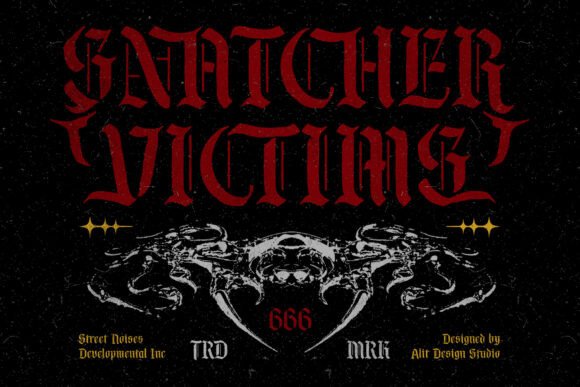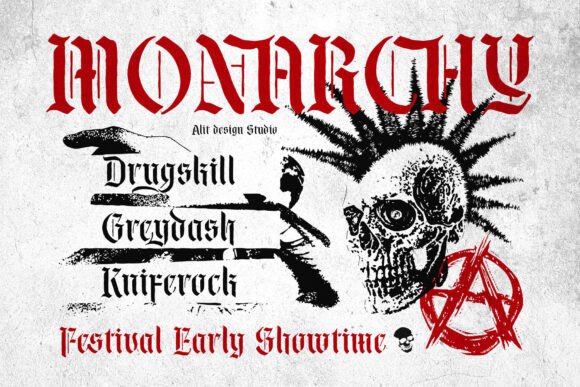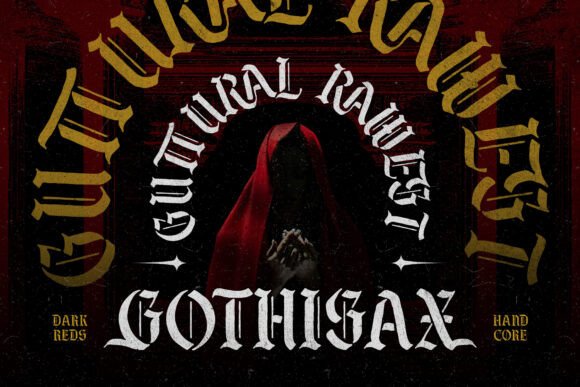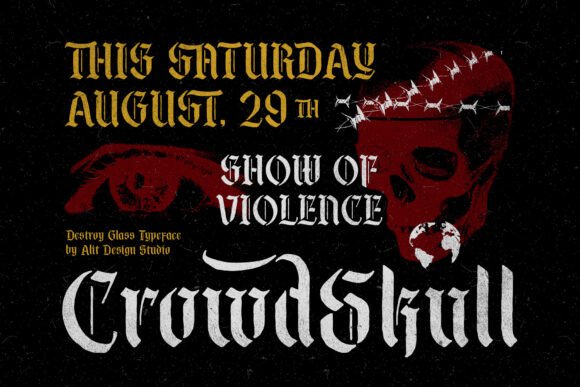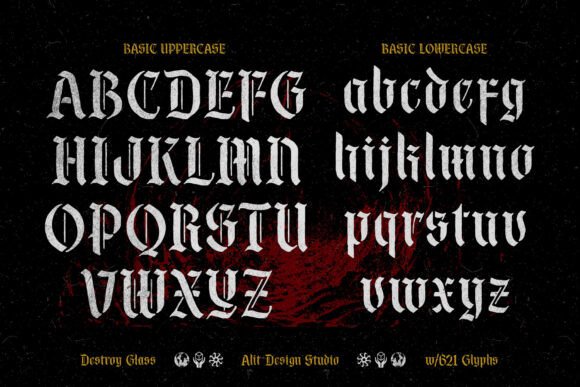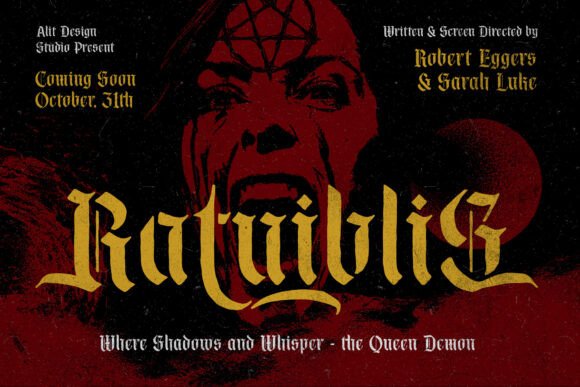
Unleash Boldness and Elegance with Destroy Glass Font
In the world of typography, a font can make all the difference in the impact and effectiveness of a design. For those seeking a typeface that exudes both boldness and elegance, Destroy Glass is an exceptional choice. This meticulously crafted blackletter stencil font is designed to make a powerful statement, offering the perfect balance of tradition and rebellion. Whether you’re aiming for a vintage gothic aesthetic or an edgy modern look, Destroy Glass delivers.
The Essence of Destroy Glass Font
Destroy Glass is not just a font; it’s an experience. Its blackletter stencil design combines the classic elements of traditional blackletter typography with the edginess of modern stencil fonts. This unique blend results in a typeface that is both timeless and contemporary, capable of fitting into various design contexts. From medieval-inspired projects to modern branding that requires a touch of gothic elegance, Destroy Glass is versatile and impactful.
The design of Destroy Glass is characterized by its bold lines, intricate stencil details, and a distinctive gothic flair. Each letterform is carefully crafted to ensure that it stands out, yet also complements the overall text when used in a sentence. The blackletter influence gives it a historical and mystical feel, while the stencil aspect adds a layer of modernity and precision.
One of the key strengths of Destroy Glass is its versatility. This font can be used across a wide range of design applications, including:
- Branding and Logo Design: Create memorable logos that stand out with a bold and elegant look.
- Typography Posters: Ideal for posters that require a strong textual impact, especially in gothic or vintage themes.
- Packaging Design: Add an edgy or classic touch to product packaging, making it more appealing to the target audience.
- Digital Media: Enhance your website headers, social media graphics, and digital advertisements with a distinctive font that captures attention.
Why Choose Destroy Glass?
Choosing Destroy Glass for your typography needs comes with several advantages:
- Unique Aesthetic: Offers a unique blend of gothic blackletter and stencil fonts, making it stand out in any design.
- High Readability: Despite its bold and intricate design, Destroy Glass maintains high readability, even at smaller sizes.
- Customization: The stencil design allows for creative customization, enabling designers to play with different patterns and fills.
Tips for Using Destroy Glass Effectively
To maximize the impact of Destroy Glass in your designs, consider the following tips:
- Contrast is Key: Use Destroy Glass against simple backgrounds to make the text pop.
- Experiment with Colors: While black is classic for stencil fonts, experimenting with other colors can give your design a unique twist.
- Mix and Match: Don’t be afraid to combine Destroy Glass with other fonts for a layered look, especially in editorial or advertising designs.
Destroy Glass font is a powerful tool for designers looking to infuse their work with boldness and elegance. Its unique blend of traditional blackletter and modern stencil elements makes it a versatile choice for a wide range of projects. Whether you’re aiming for a vintage aesthetic or a modern edge, Destroy Glass is sure to make a statement. Embrace the blend of tradition and rebellion that Destroy Glass offers, and elevate your designs to new heights of creativity and impact.